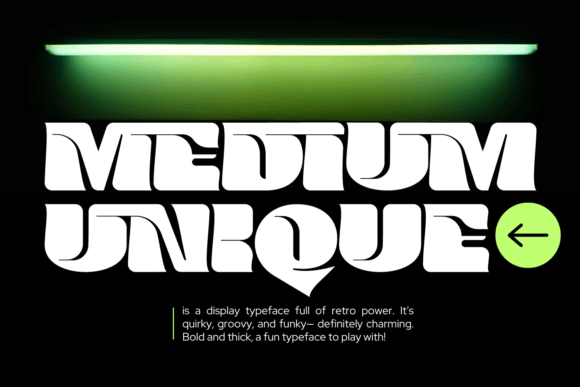
Introducing the Medium Unique Font, a display typeface that will transport you back to the retro era with its powerful and captivating design. Created by the renowned 177Studio, this font is the perfect choice for anyone looking to create a medium poster that stands out from the crowd.
With its quirky, groovy, and funky style, the Medium Unique Font exudes charm and playfulness. Its soft corners add a touch of cuteness that is simply irresistible. Just like a friendly face you want to embrace, this font brings a fun-loving spirit to your designs, making them truly unforgettable.
What sets the Medium Unique Font apart is its versatility. Complete with ligatures and alternative glyphs, this font offers endless possibilities for creativity. Whether you're working on branding, titling, headlines, or any other design project, this font will elevate your work to new heights.
Built with OpenType features, the Medium Unique Font includes 100 ligatures, alternate characters, numbers, punctuation, and support for multiple languages. This means that no matter where you're from or what you're working on, this font has got you covered.
Imagine the impact your medium poster will have with the Medium Unique Font. With its eye-catching design and captivating appeal, it will draw attention and leave a lasting impression on your audience. Stand out from the crowd and let your creativity shine with this one-of-a-kind font.